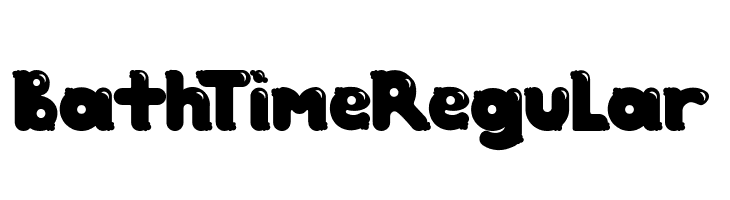
A playful, bold font with rounded, bubbly characters perfect for fun and engaging designs.
A bold, playful font with chunky, rounded characters perfect for fun and creative projects.
A bold, playful font with rounded, bubbly characters.
A bold, playful font with rounded, bubbly characters perfect for fun designs.